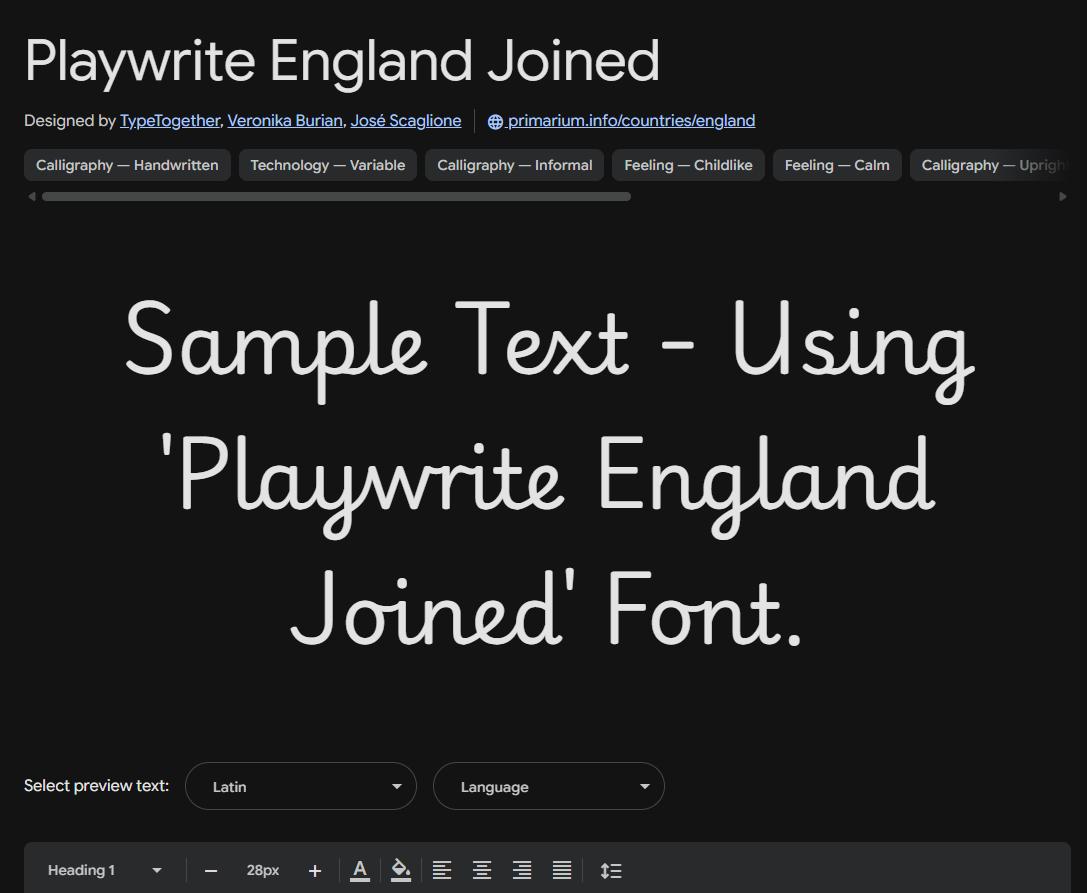
Playwrite England Joined, meticulously engineered by Veronika Burian and José Scaglione of TypeTogether, represents a paradigm shift in pedagogical typography by translating local handwriting standards into a sophisticated variable font architecture. Utilizing two axes of interpolation, the typeface offers granular control over stroke weight and slant, effectively digitizing the fluid rhythm of continuous-line cursive taught in English schools through high-performance OpenType programming. This dual-axis system allows educators and designers to modulate the font's appearance for diverse reading environments, ensuring that the legacy of regional penmanship is preserved within a modern, semantically robust digital framework that optimizes both legibility and calligraphic authenticity.
The Playwrite England Joined font family represents a sophisticated synthesis of educational pedagogy and contemporary variable font technology, serving as a high-performance digital simulacrum of primary school handwriting scripts. Characterized by its upright, informal calligraphy, the typeface utilizes an adaptable variable axis to navigate a diverse emotional spectrum, ranging from a calm, childlike innocence to a loud, rugged aesthetic that captures a distinct vintage authenticity. These handwritten glyphs are meticulously engineered with semantic precision to maintain a happy and playful rhythm, ensuring that the inherent charm of traditional penmanship is preserved within a modern typographic framework. By blending the fluid connectivity of joined-up script with robust technical interpolation, Playwrite England Joined offers a unique architectural perspective on how nostalgic, human-centric design can thrive in an increasingly digitized, data-driven interface.
Due to its specialized cursive ductus and continuous glyph connectivity modeled after the English National Curriculum's primary education standards, Playwrite England Joined is inherently unsuitable for high-stakes technical environments such as pharmacovigilance labeling, legal engineering schematics, or mission-critical avionics displays where instantaneous legibility and minimal cognitive load are paramount. The inherent rhythmic variance and high ligature density of this variable font, while pedagogically sound for penmanship training, can impede character recognition speeds and optical clarity in low-resolution digital interfaces, potentially compromising WCAG accessibility compliance for functional UI components where neutral stroke modulation and distinct letterform isolation are required for universal data interpretation.
Playwrite England Joined is primarily designed for decorative accents and short phrases rather than extended reading passages. The complex ligatures and rhythmic vertical frequency can create visual noise that increases cognitive load, resulting in lower words-per-minute (WPM) reading speeds compared to standard humanist sans-serifs.
Clean sans-serifs or geometric typefaces provide a necessary structural contrast to complement the fluid, organic curves of this script. Utilizing a high x-height grotesque for secondary information anchors the layout, preventing the variable baseline of the cursive glyphs from destabilizing the overall typographic hierarchy.
Legibility tends to decrease significantly at smaller scales as the intricate connections between characters begin to blur and lose definition. Technical analysis reveals that the stroke-to-counter ratio is optimized for display usage, where the thin hairlines require a minimum physical output of 16px to prevent rasterization artifacts on standard DPI screens.
This font excels in stationery design by evoking a sense of personal craftsmanship and traditional penmanship. Its implementation of OpenType stylistic alternates mimics the natural pressure variations of a physical nib, providing a high-fidelity analog aesthetic for premium print assets.
Contextual alternates ensure that the exit stroke of one character transitions into the entry stroke of the next without visible breaks. The font utilizes a complex lookup table within its GPOS (Glyph Positioning) features to dynamically adjust terminal heights, ensuring mathematical continuity across varying character pairings.
While visually striking, this script is generally impractical for functional UI elements like navigation menus or buttons where quick scanning is required. From a usability standpoint, the variable glyph widths violate the predictability of touch targets, often resulting in an increased Fitts's Law index for interactive components.
Manual tracking should generally be avoided because it breaks the pre-defined anchor points that connect the cursive letters. Altering the default letter-spacing disrupts the specific kern pairs defined in the font's metadata, leading to orphaned strokes that fail to meet the mandatory overlap requirements for a continuous script baseline.
The moderate stroke weight can struggle for visibility when placed directly over high-contrast or multicolored imagery. For optimal accessibility, a luminance contrast ratio of at least 4.5:1 is required, often necessitating the use of a CSS drop-shadow or a semi-opaque background layer to protect the script's delicate geometry.
It is highly effective for lifestyle or artisanal branding that seeks to convey authenticity and a human touch. The unique vector paths allow for significant brand differentiation, particularly when the glyphs are converted to outlines to allow for custom path manipulation in SVG formats.
The aesthetic mimics modern primary school handwriting styles, making it ideal for early childhood learning resources and instructional design. By following the specific pedagogical standards of the England Joined handwriting model, the font reinforces motor memory through its consistent slant and loop architecture.